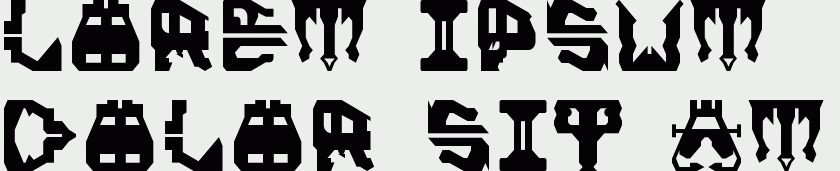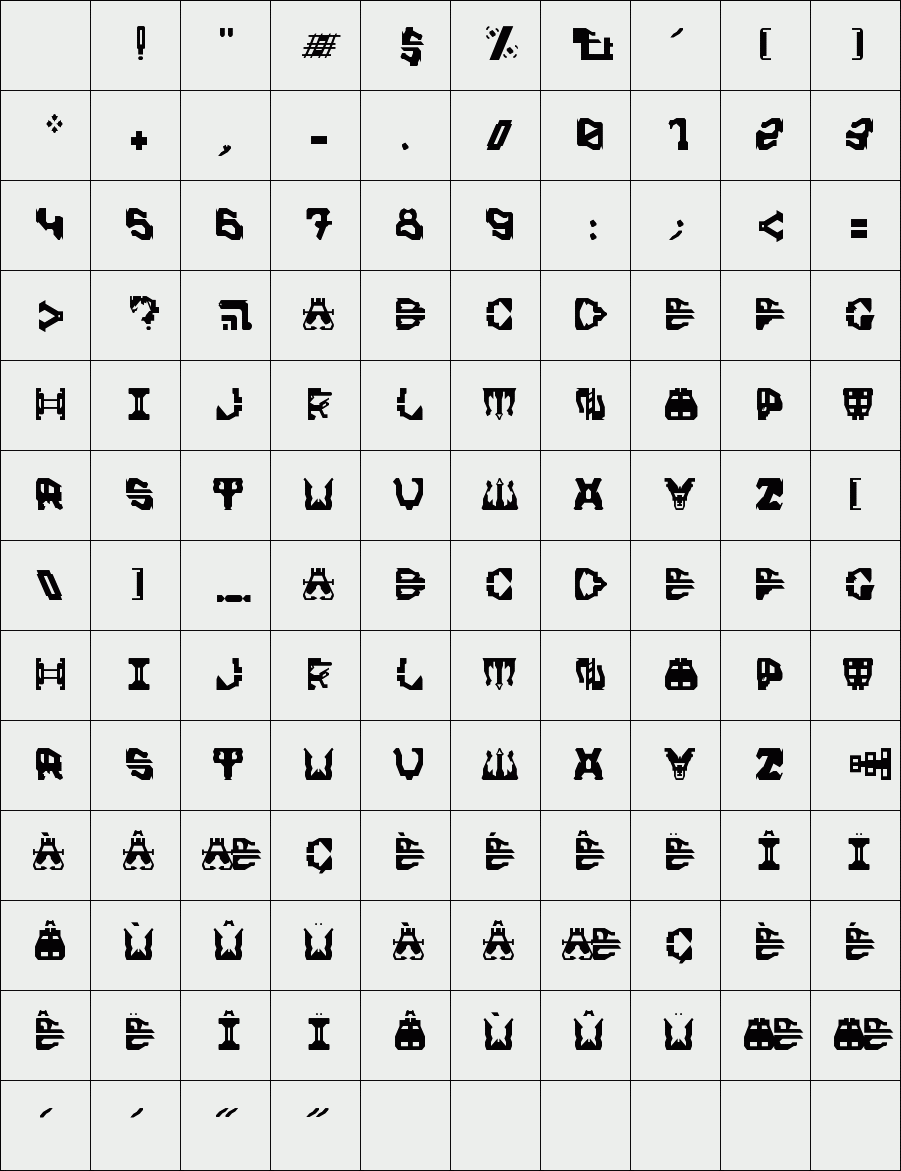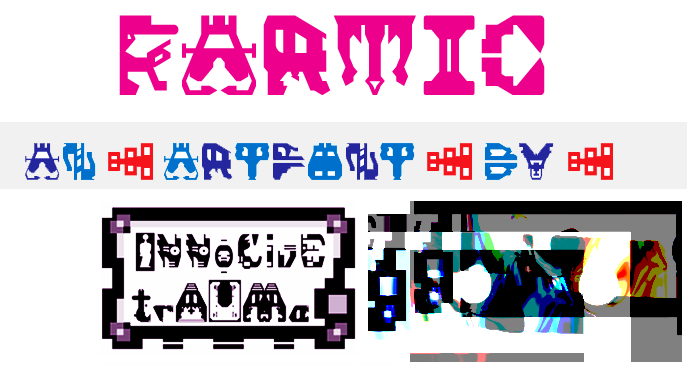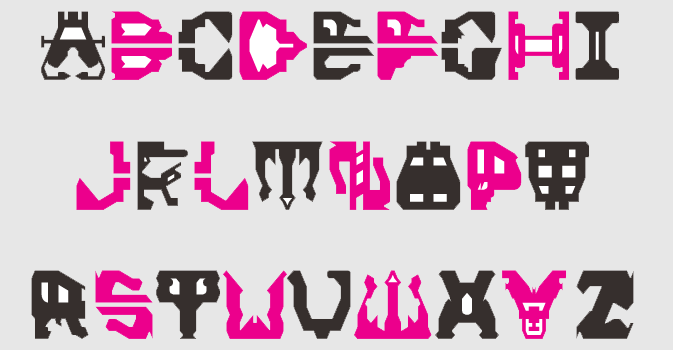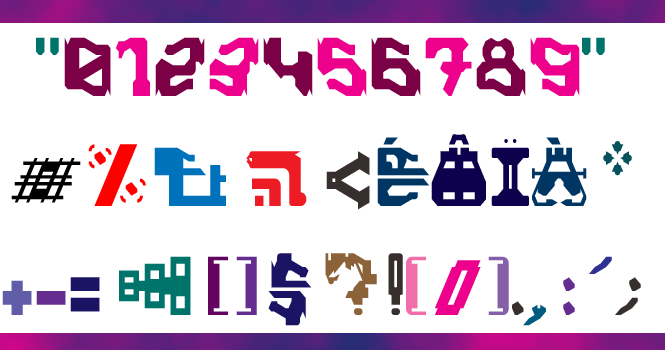
trAUMa 101 / Karmic
"Karmic", like all the "trAUMa" series, works at the frontier between Art & Type Design, Figuration & Abstraction, each font is a comprehensive world in which every glyph is a "living" entity. But put together they can produce your messages in the most accurate way.